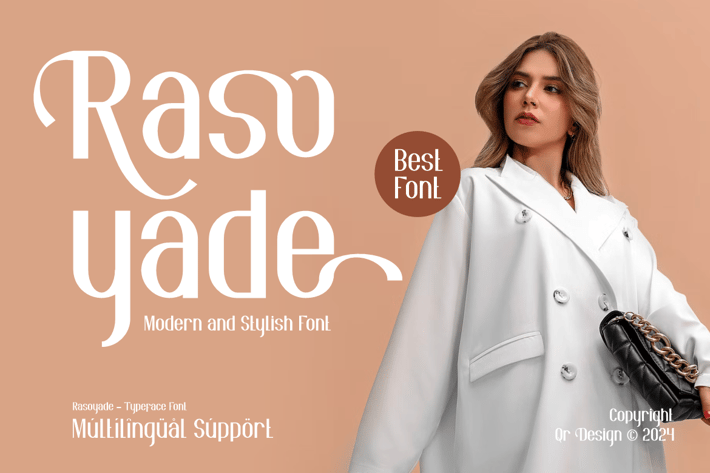
Rasoyade - Sans Serif Typeface Font
Rasoyade Font is a sans serif and authentic display font.
+ Uppercase & Lowercase
+ Ligatures & Alternate
+ Numeral & Punctuations
+ Multilingual Support
+ Extended Character Set